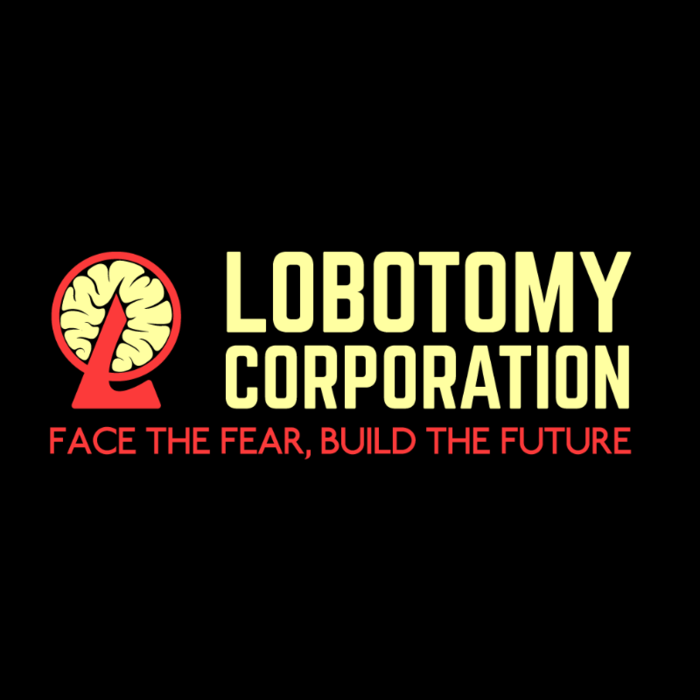
Lobotomy Corporation Font
Fonts in UseLobotomy Corporation is a management simulation game where you run an underground laboratory that studies and contains dangerous anomalies. It was developed and published by the South Korean studio Project Moon in April 2018.
The game's logo features a free font called Norwester designed by Jamie Wilson. The tagline "Face the fear, Build the future" is probably set in P22 Underground Medium, which is a revival of Johnston typeface by Edward Johnston.